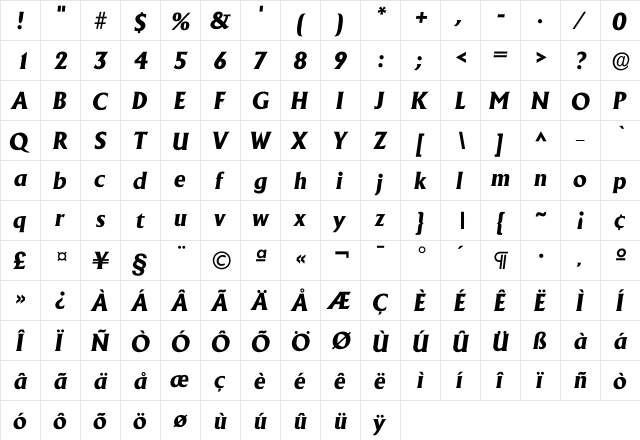
Iadelon Bold
Design Context for Iadelon Typeface
Iadelon offers clean, dependable letterforms without strong stylistic allegiance, making it a practical choice for designers who need flexibility. Its bold stroke weight gives it real presence on the page.
Pro Tip: Pair Iadelon with a font of contrasting weight or personality to build a more expressive typographic hierarchy.